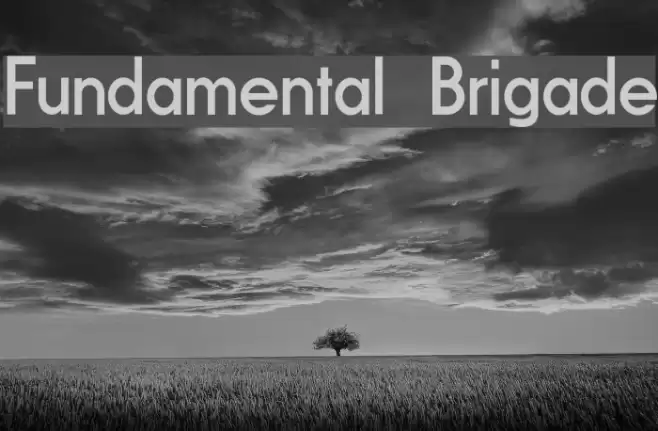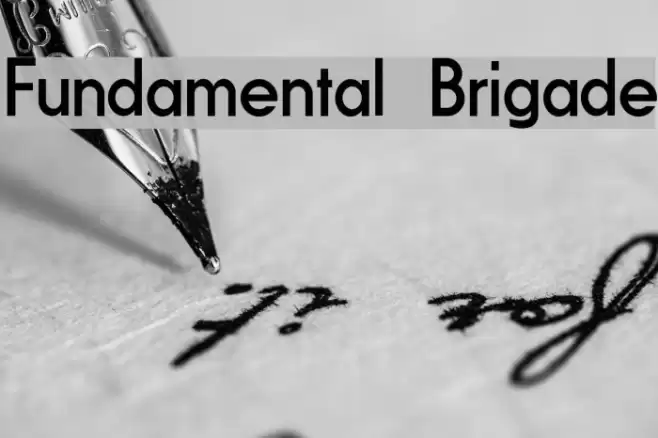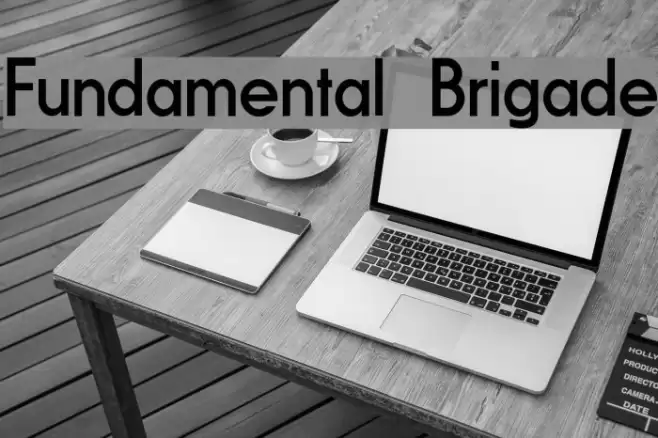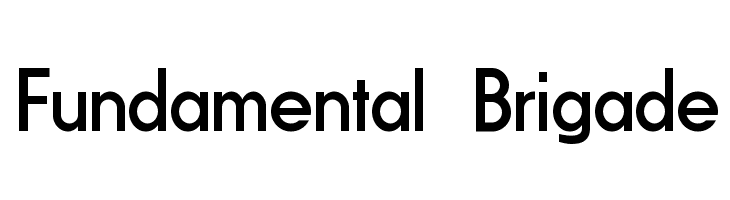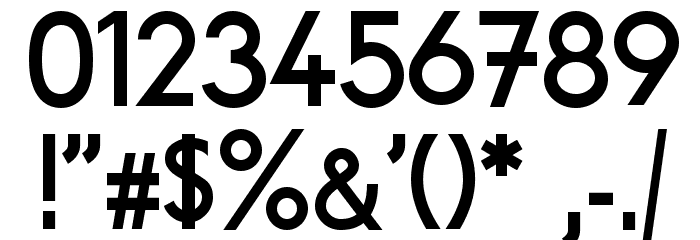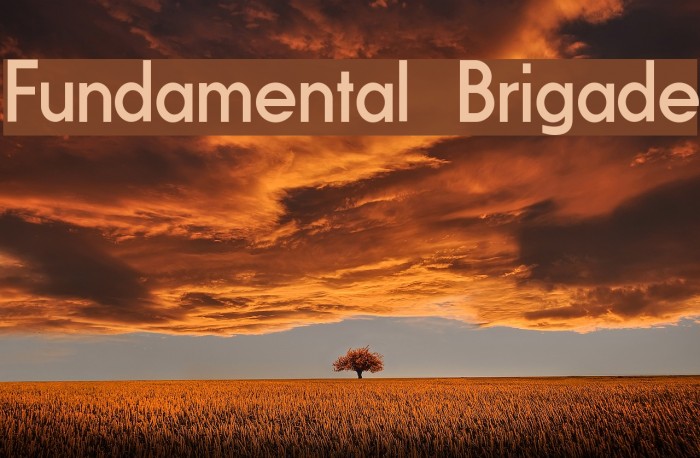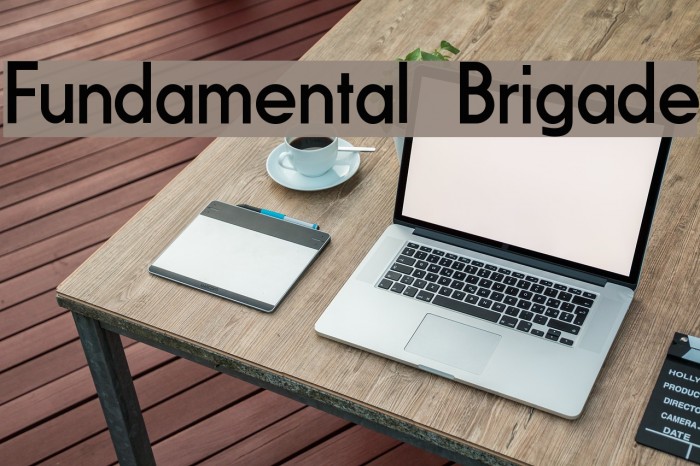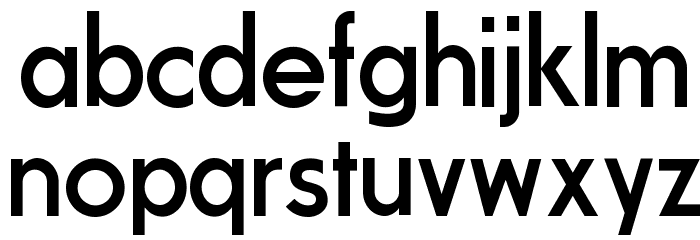
Fundamental Brigade Font
Fundamental Brigade Description
This font features a clean and modern sans-serif style with uniform stroke widths, providing a sleek and professional appearance. The characters are well-proportioned, with a consistent height and width that enhances readability. The uppercase letters are bold and assertive, while the lowercase letters maintain a friendly and approachable feel. The numerals are clear and distinct, making them suitable for both text and numerical data. Special characters are designed with precision, ensuring they complement the overall aesthetic of the font. This font is versatile, suitable for a wide range of applications from digital to print media.
A modern sans-serif font with clean lines and uniform stroke widths from Uncategorized fonts.